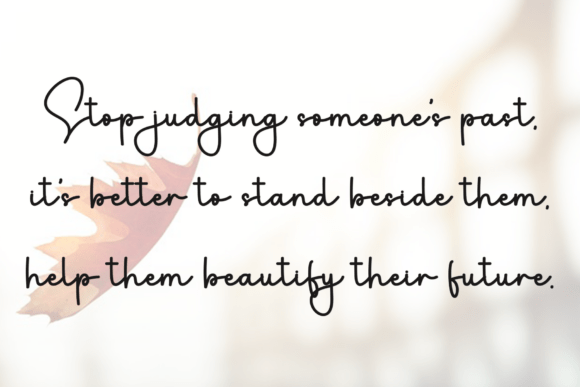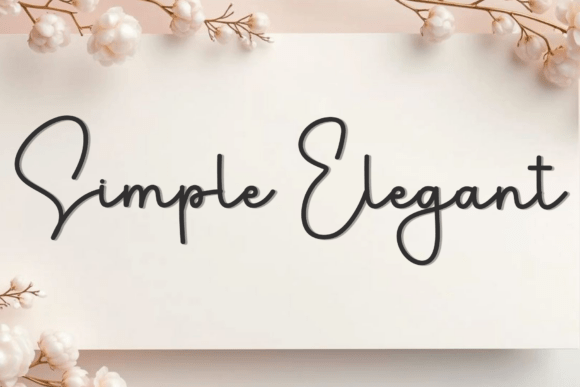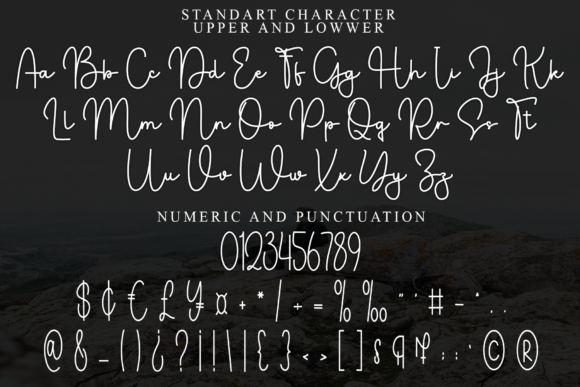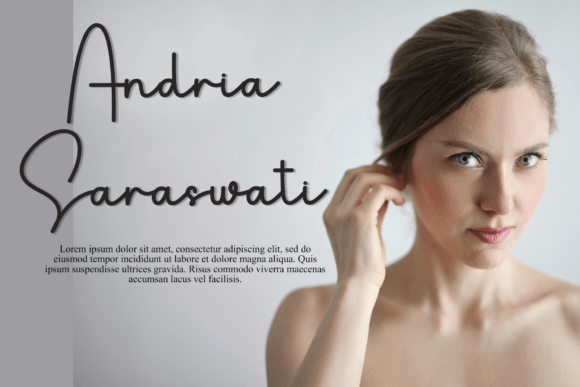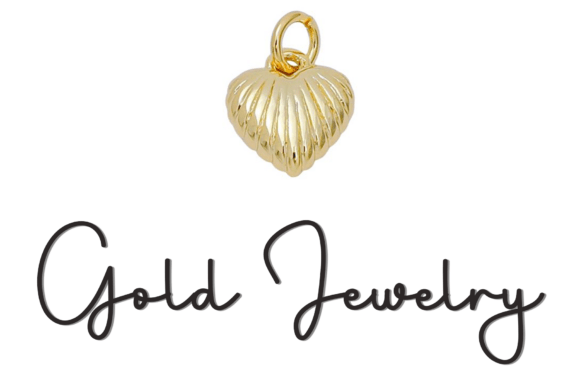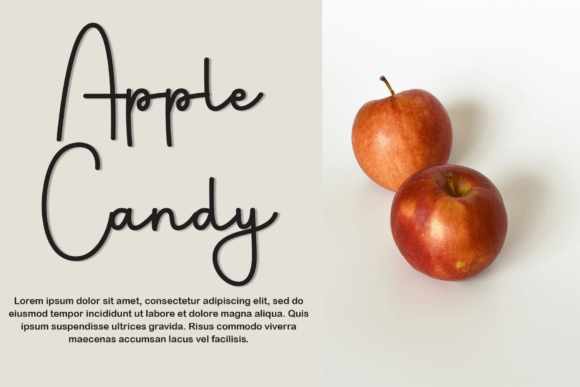
Introducing Birthday Font: The Perfect Addition to Your Design Arsenal
Are you tired of using the same old fonts in your design projects? Look no further! Birthday Font is a beautiful and eye-catching font designed with a soft, unique touch that’s sure to elevate your creative works. Its distinctive strokes give it a special character, making it meaningful and versatile for future use.
What Makes Birthday Font So Special?
Birthday Font is not just another font – it’s a game-changer. With its unique and soft design, it’s perfect for a wide range of design projects, crafts, and other creative works. The font features various characters, making it ideal for use in various applications, from digital designs to print materials.
- Unique and Soft Design: Birthday Font boasts a distinctive and eye-catching design that’s sure to grab attention.
- Versatile: The font is perfect for use in various design projects, crafts, and other creative works.
- Natural Font Style: The font features a natural and organic design that’s perfect for creating visually appealing designs.
Why Designers and Crafters Love Birthday Font
Birthday Font is a favorite among designers and crafters due to its versatility and unique design. Here are just a few reasons why:
- Perfect for Design Projects: Birthday Font is ideal for use in digital designs, print materials, and other creative projects.
- Great for Crafts: The font is perfect for use in crafts, such as scrapbooking, card making, and other paper crafts.
- Enhances Designs: Birthday Font is sure to elevate your designs, making them appealing to a wide range of audiences across different artistic and creative fields.
How to Use Birthday Font in Your Designs
Using Birthday Font in your designs is easy. Here are a few tips to get you started:
- Pair it with Other Fonts: Birthday Font pairs well with other fonts, making it easy to create visually appealing designs.
- Use it in Digital Designs: The font is perfect for use in digital designs, such as social media graphics, blog posts, and more.
- Experiment with Different Sizes and Colors: Don’t be afraid to experiment with different sizes and colors to find the perfect look for your design.
In conclusion, Birthday Font is a beautiful and eye-catching font that’s perfect for designers and crafters looking to elevate their creative works. With its unique and soft design, versatility, and compatibility with various applications, it’s sure to become a favorite in your design arsenal. So why wait? Download Birthday Font today and start creating stunning designs that will leave a lasting impression!